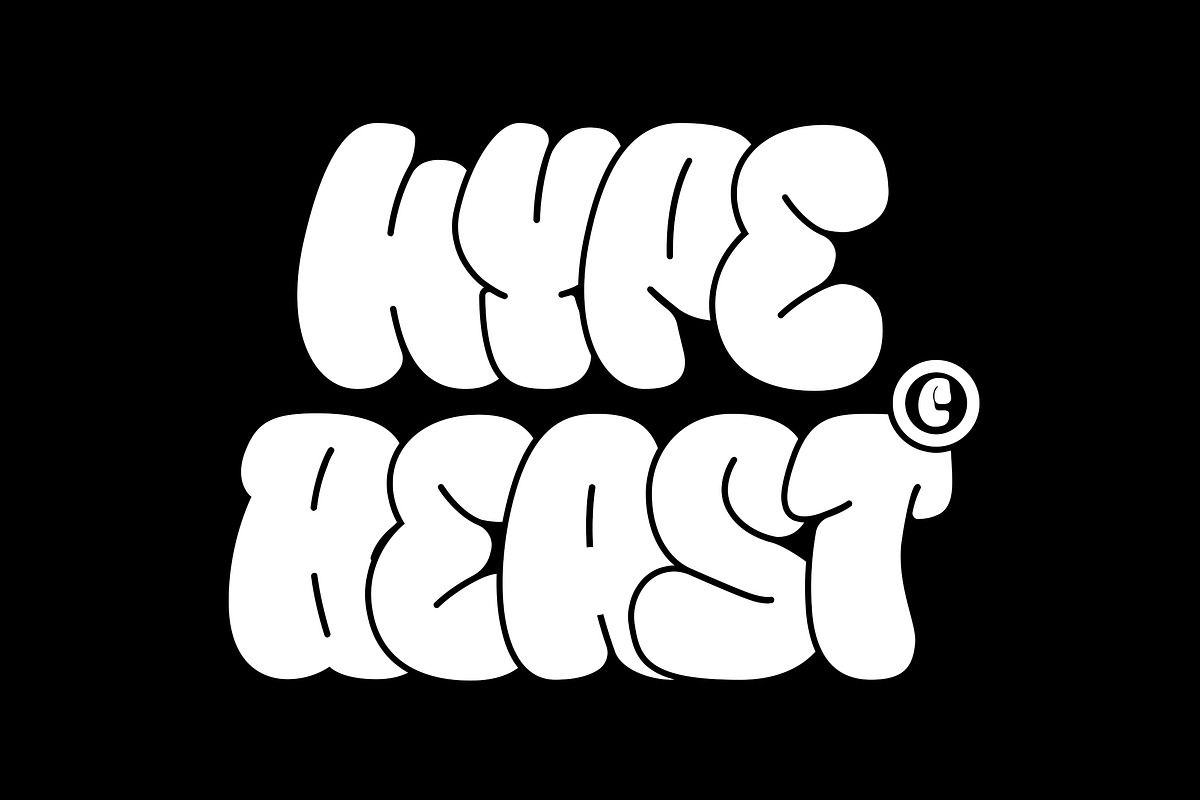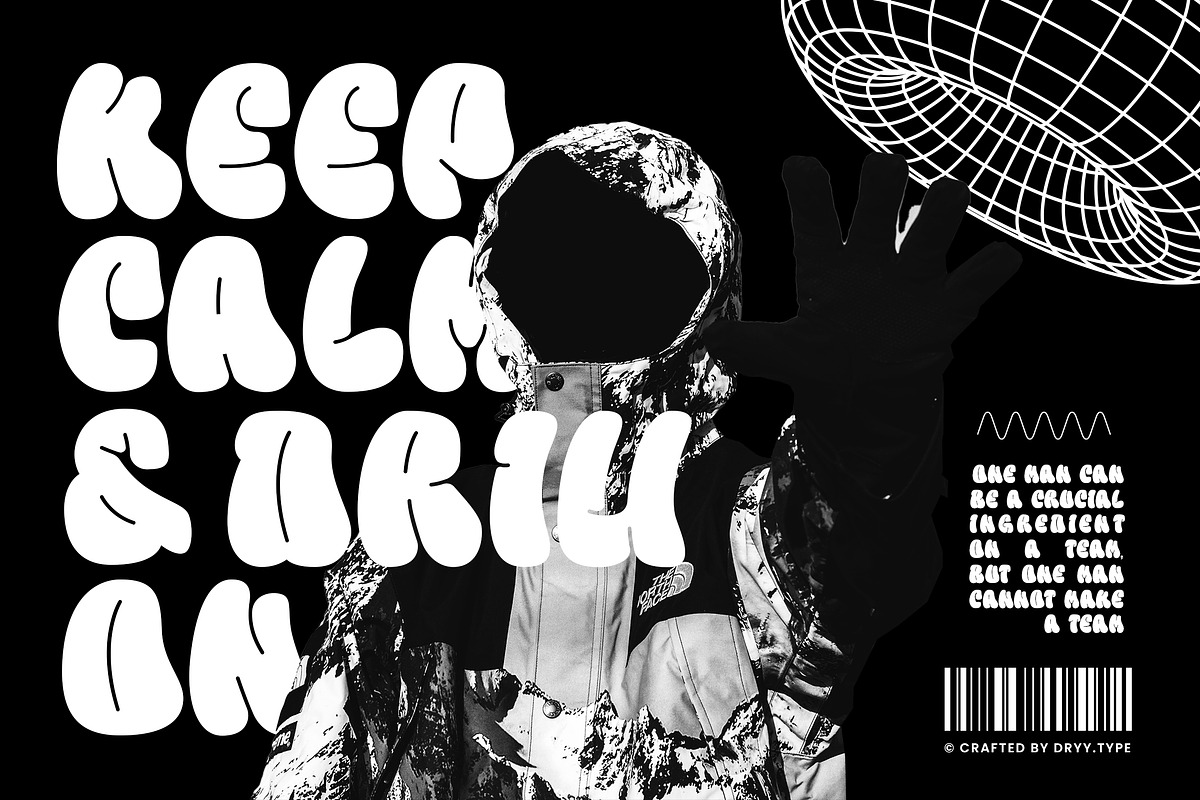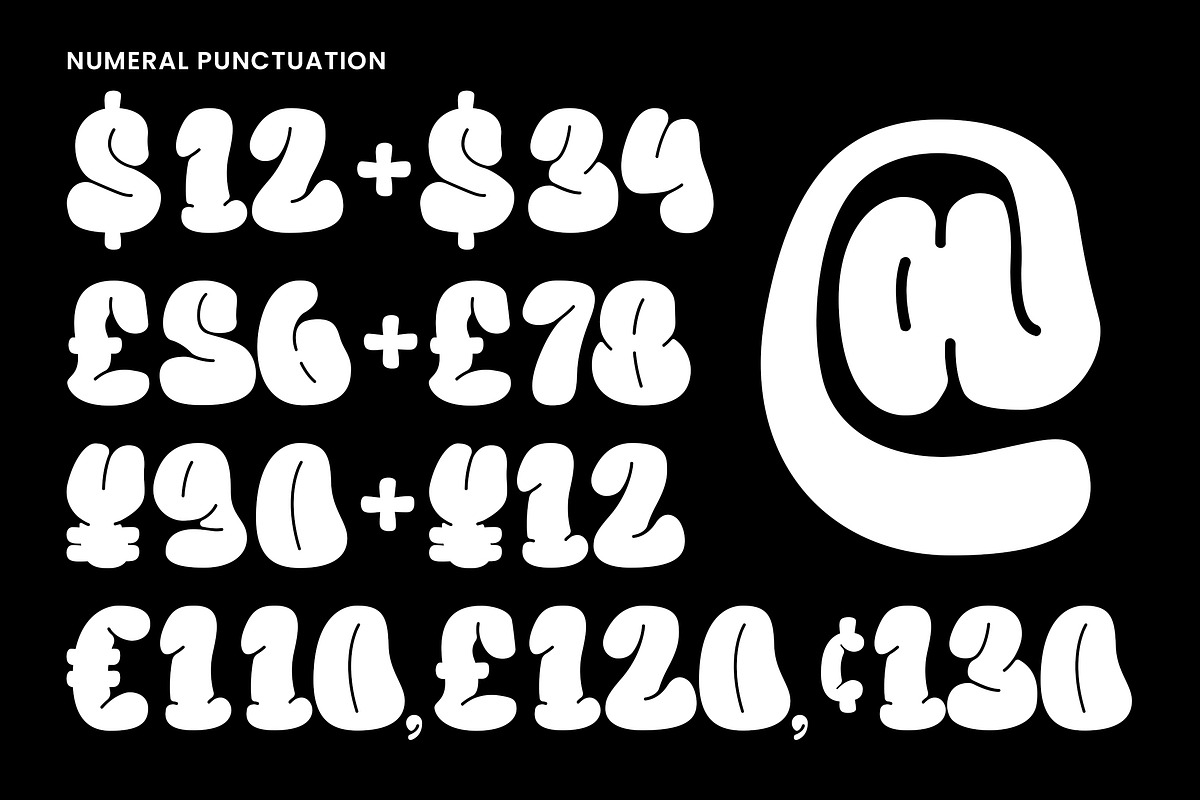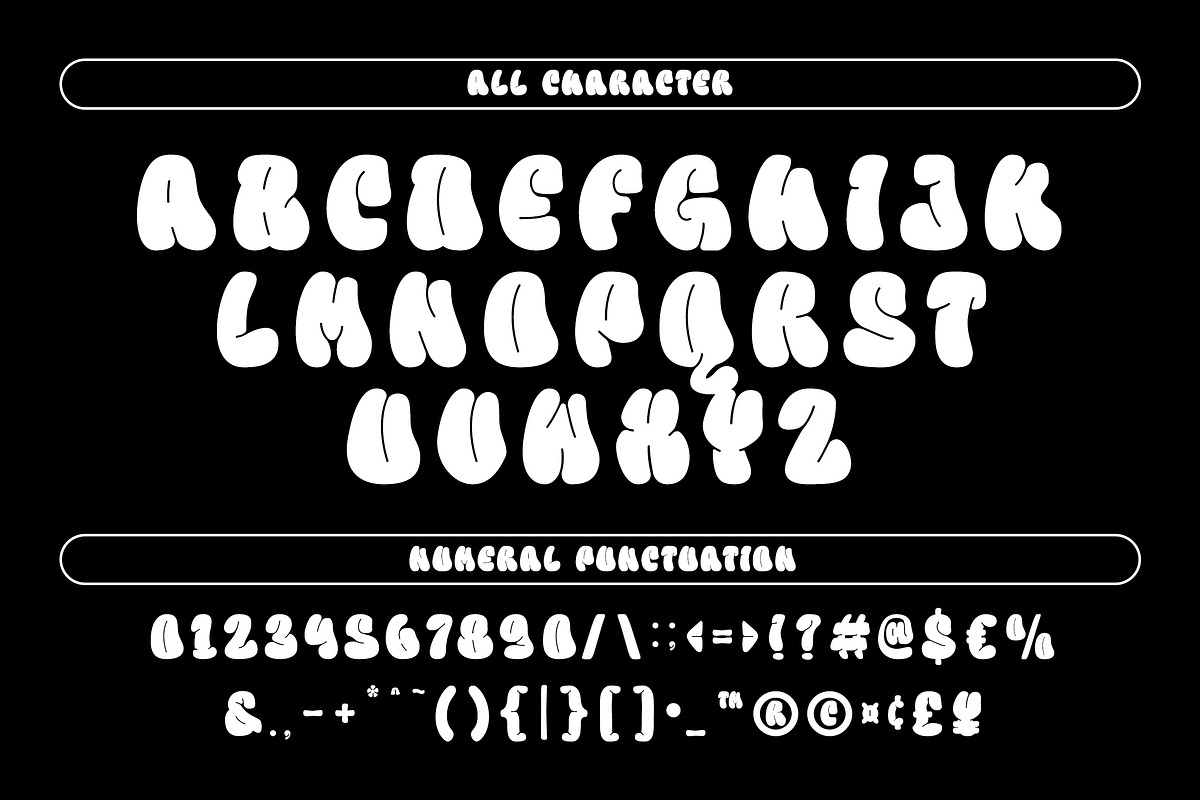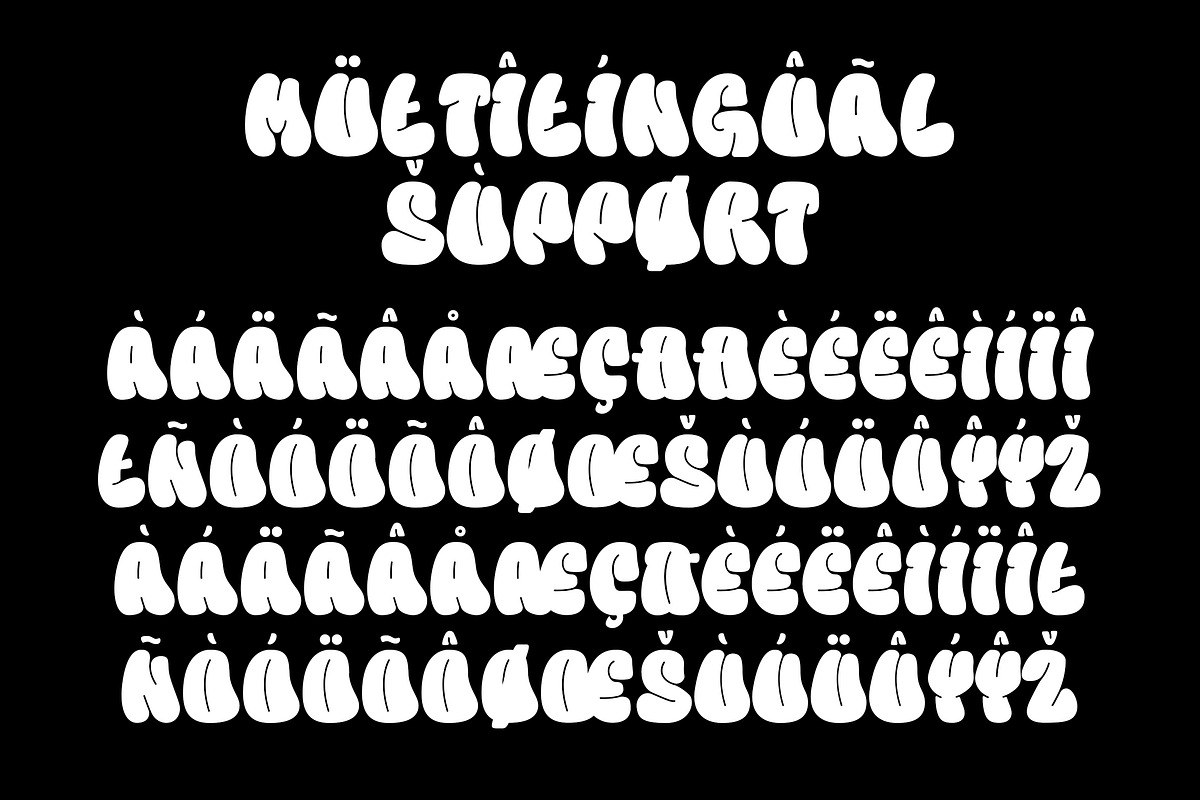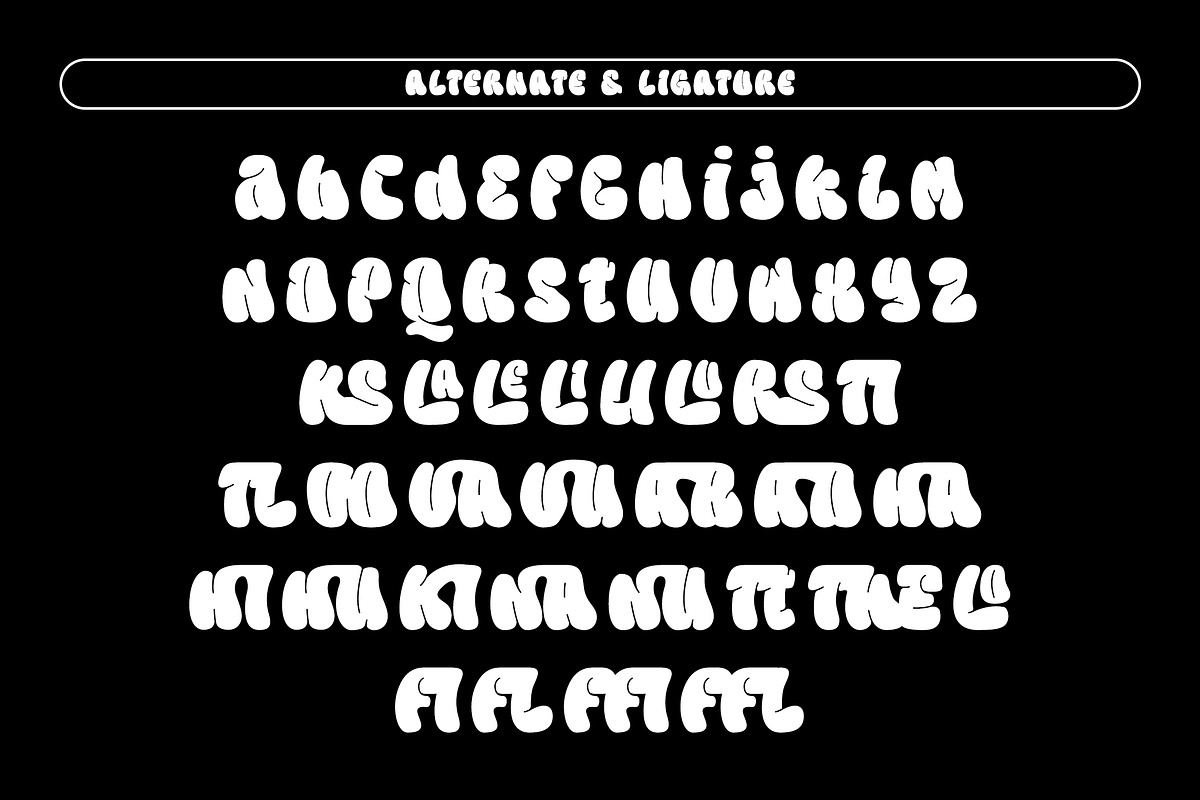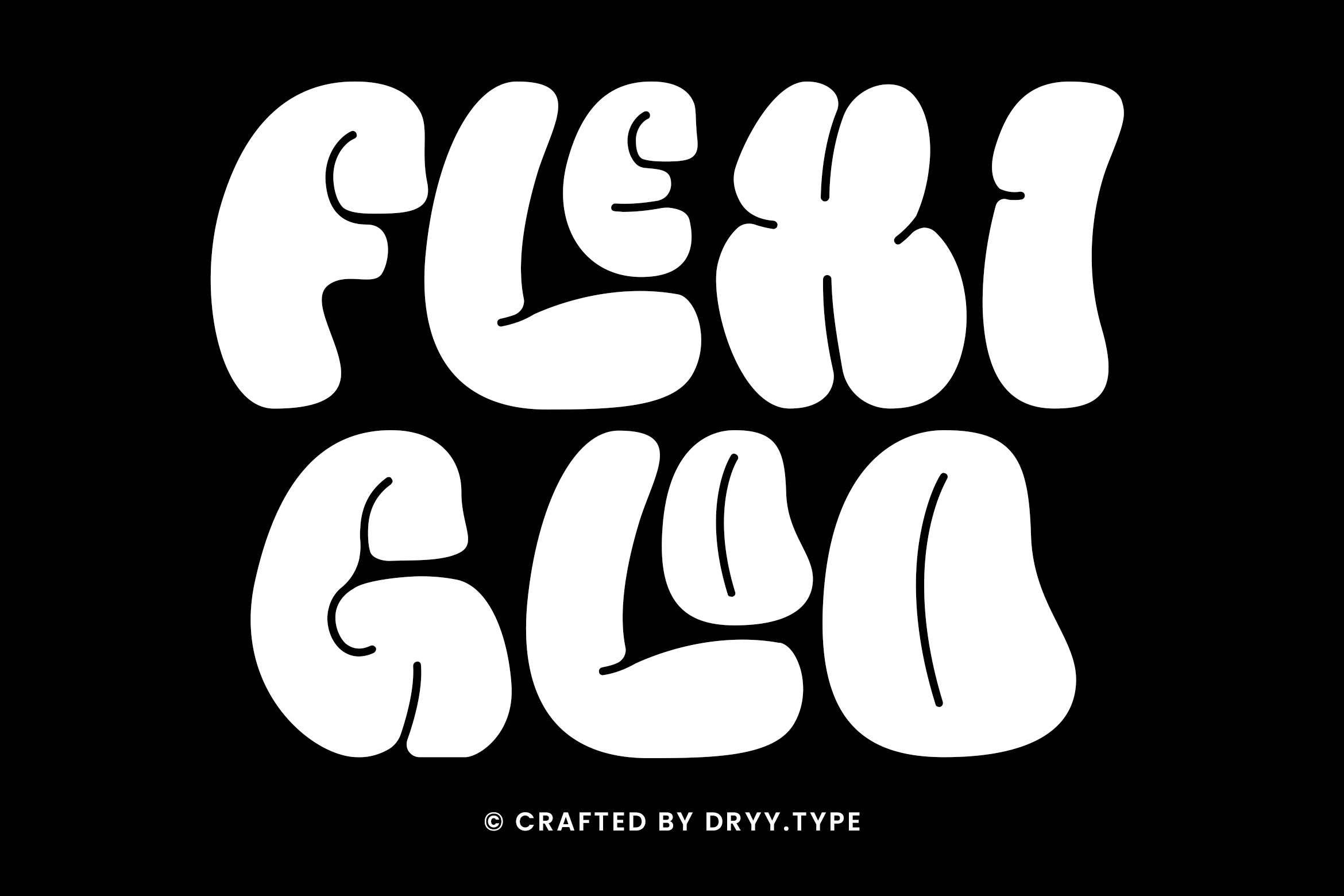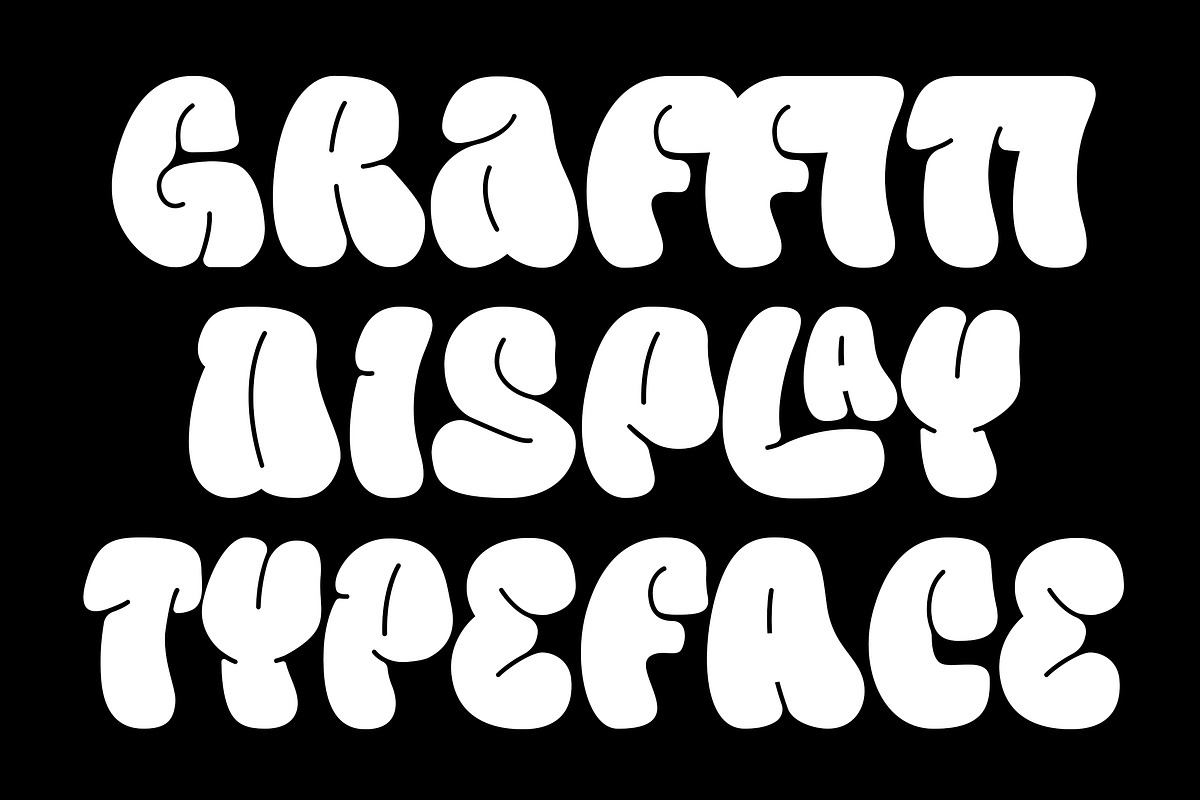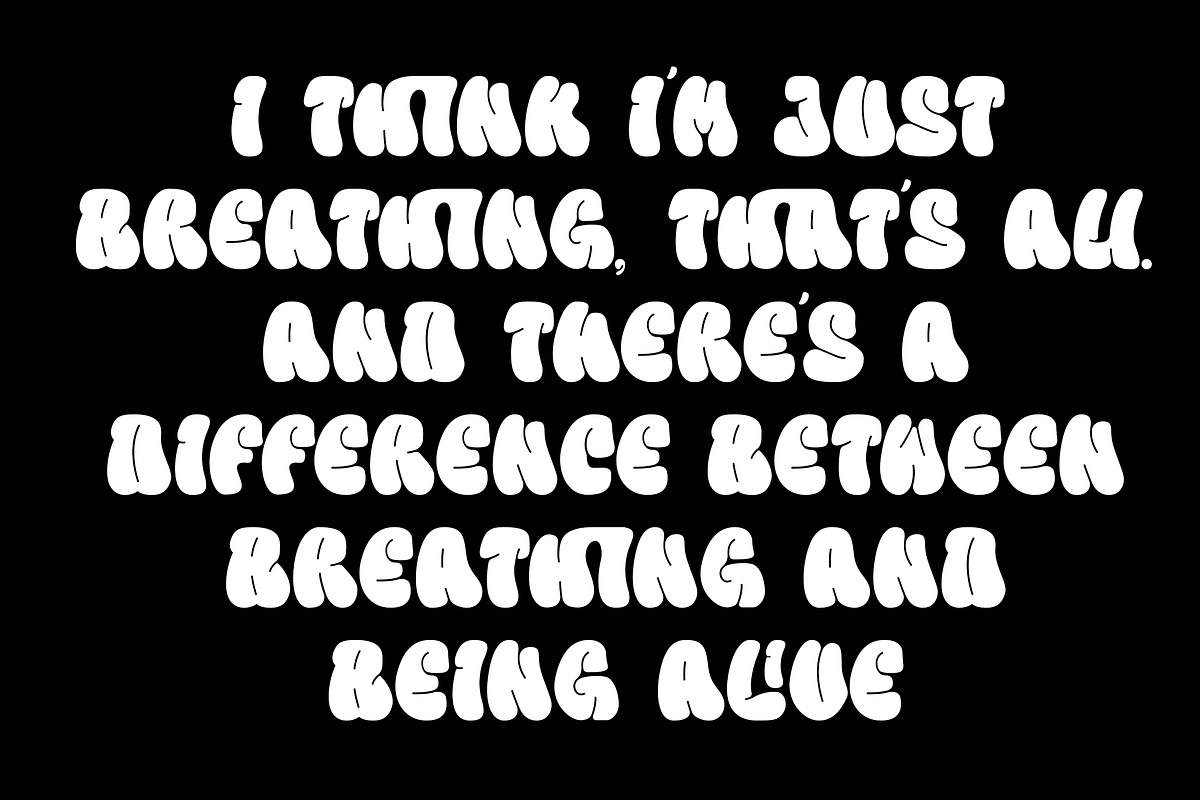
Flexi Gloo - Bubble Display Font
Flexi Gloo Font
A display typeface that has a bubble character and graffiti theme font to work with.
The Flexi Gloo font is, as the name suggests, a hypebeast and unique display font. This font I've created has been in heavy use this year & is very versatile, goes well with a variety of designs, elevating it to the highest level. Add this font to your favorite creative ideas and see the results!